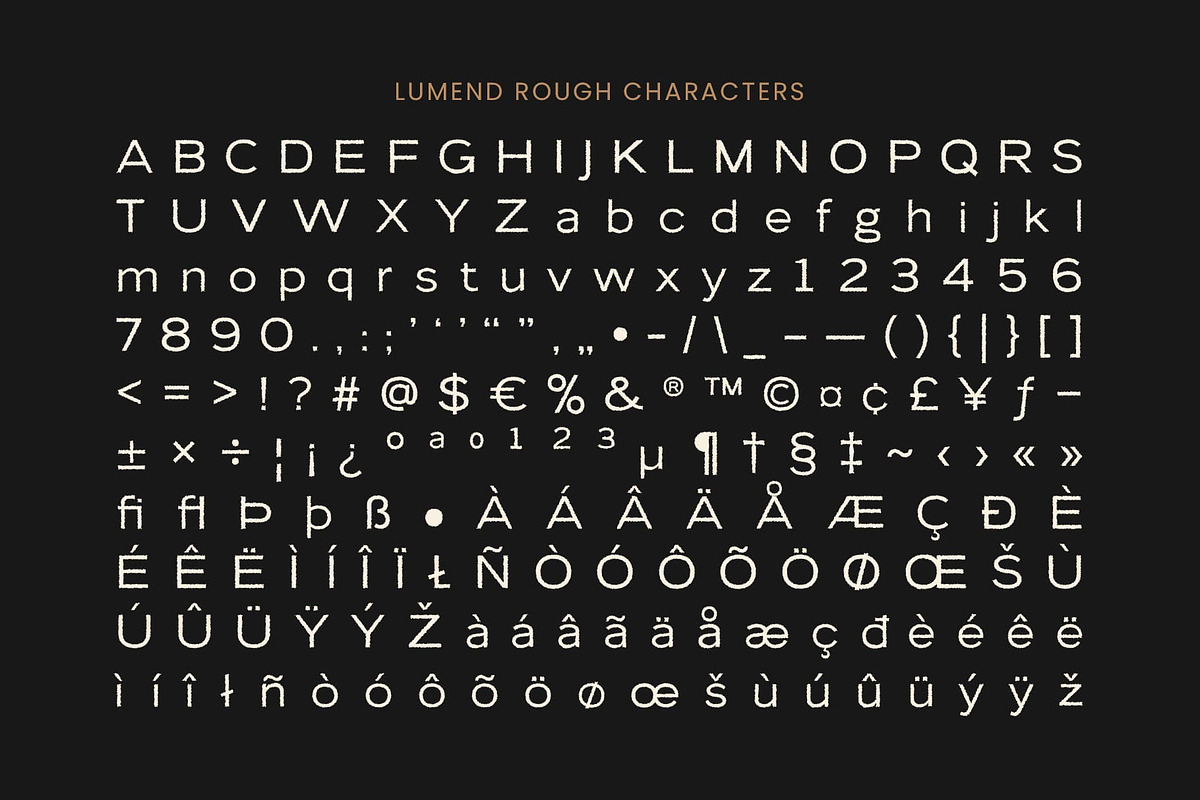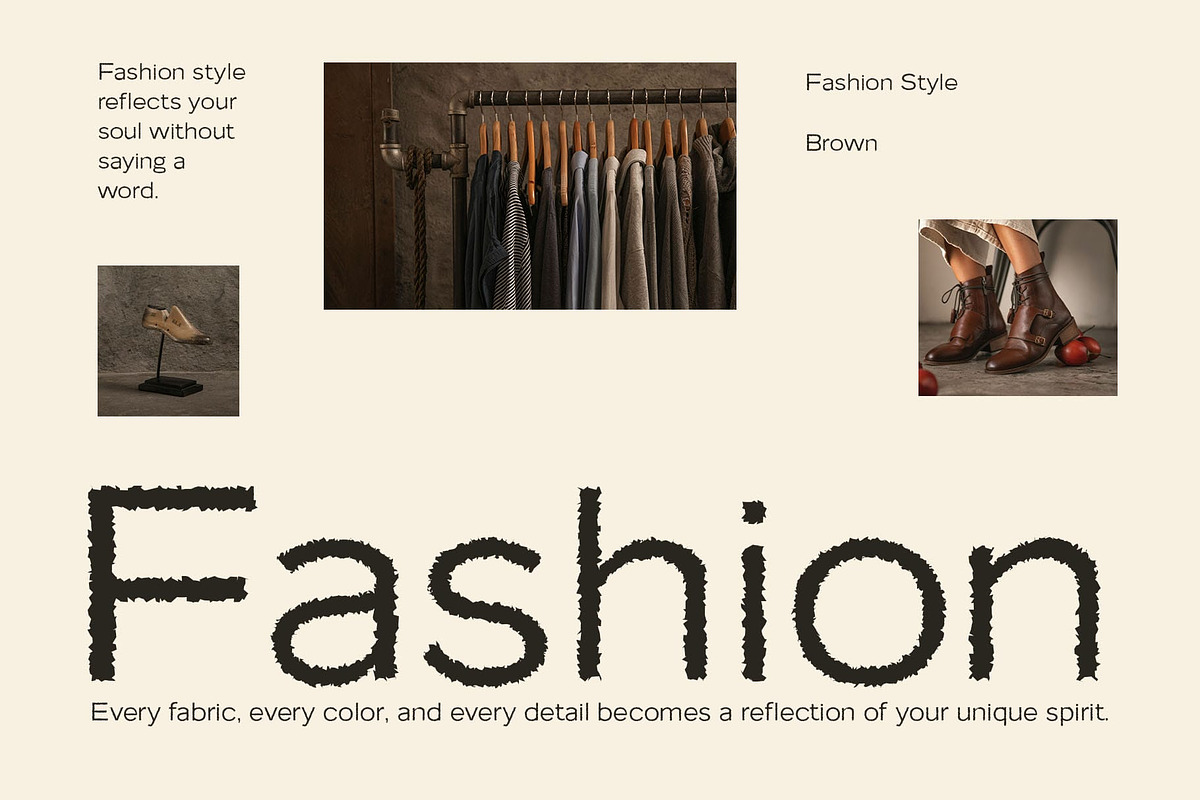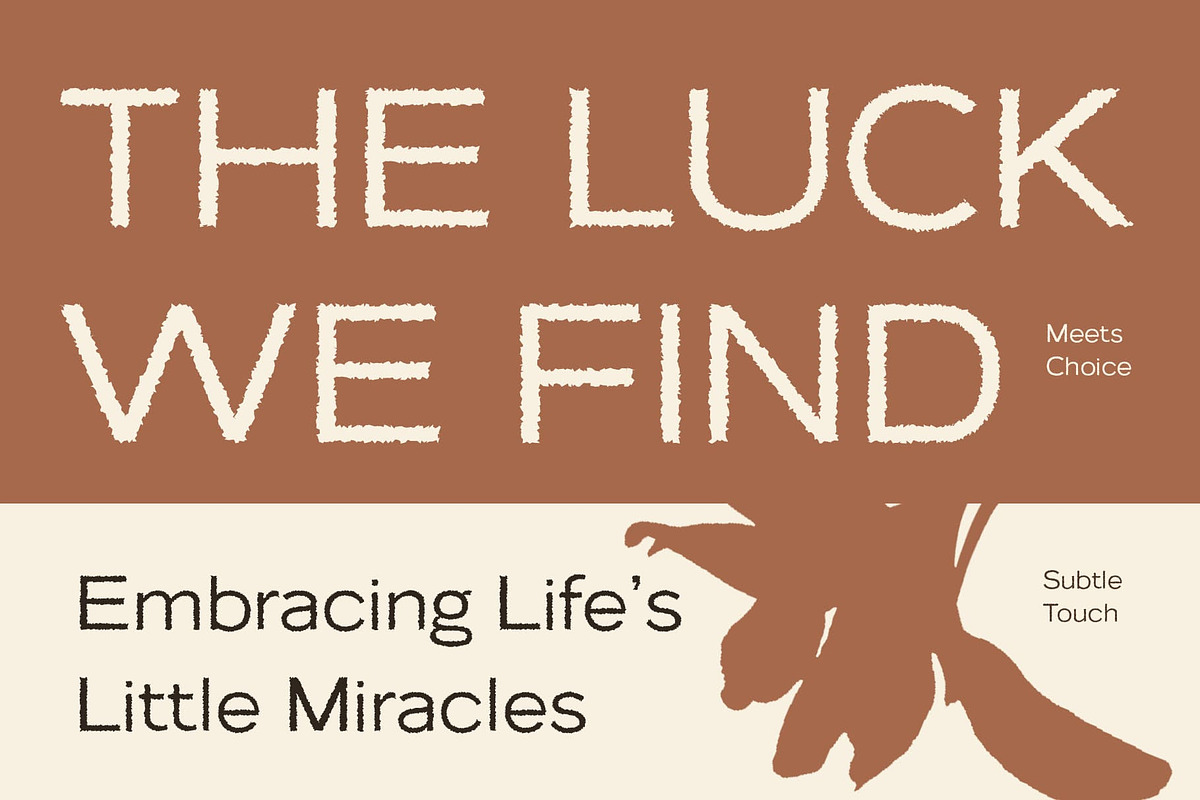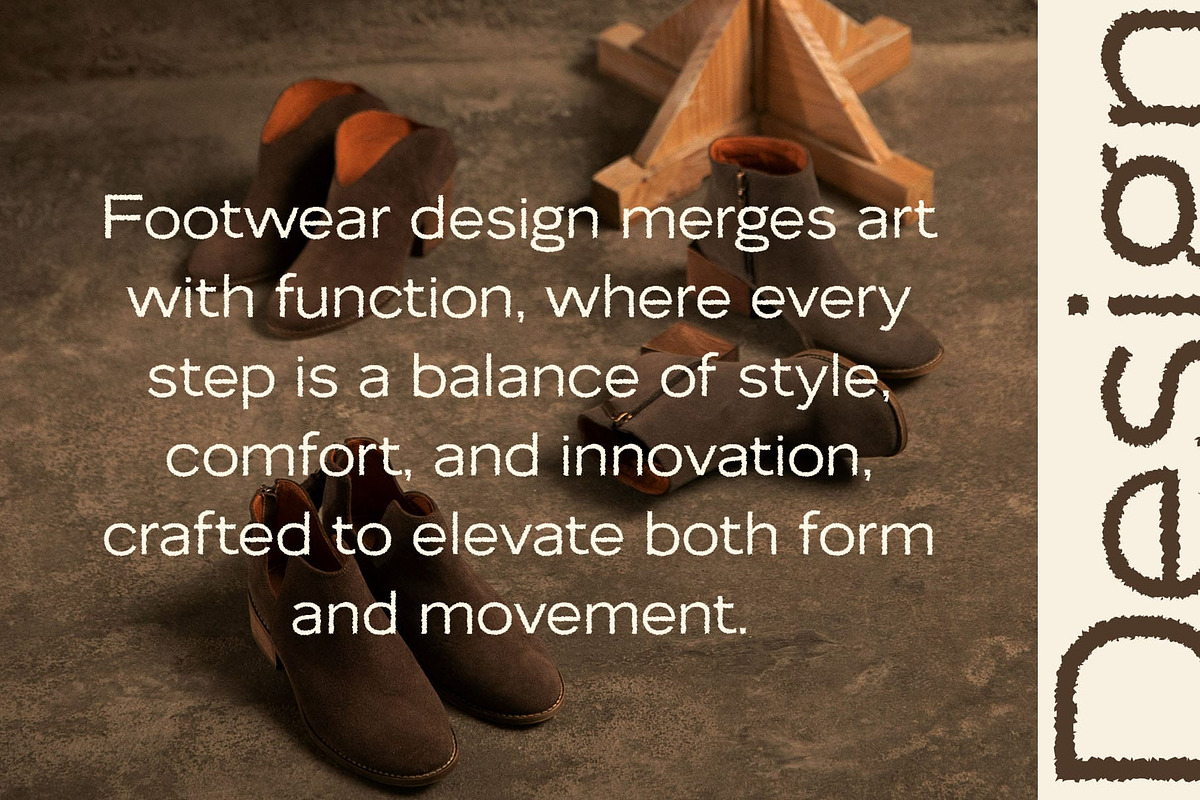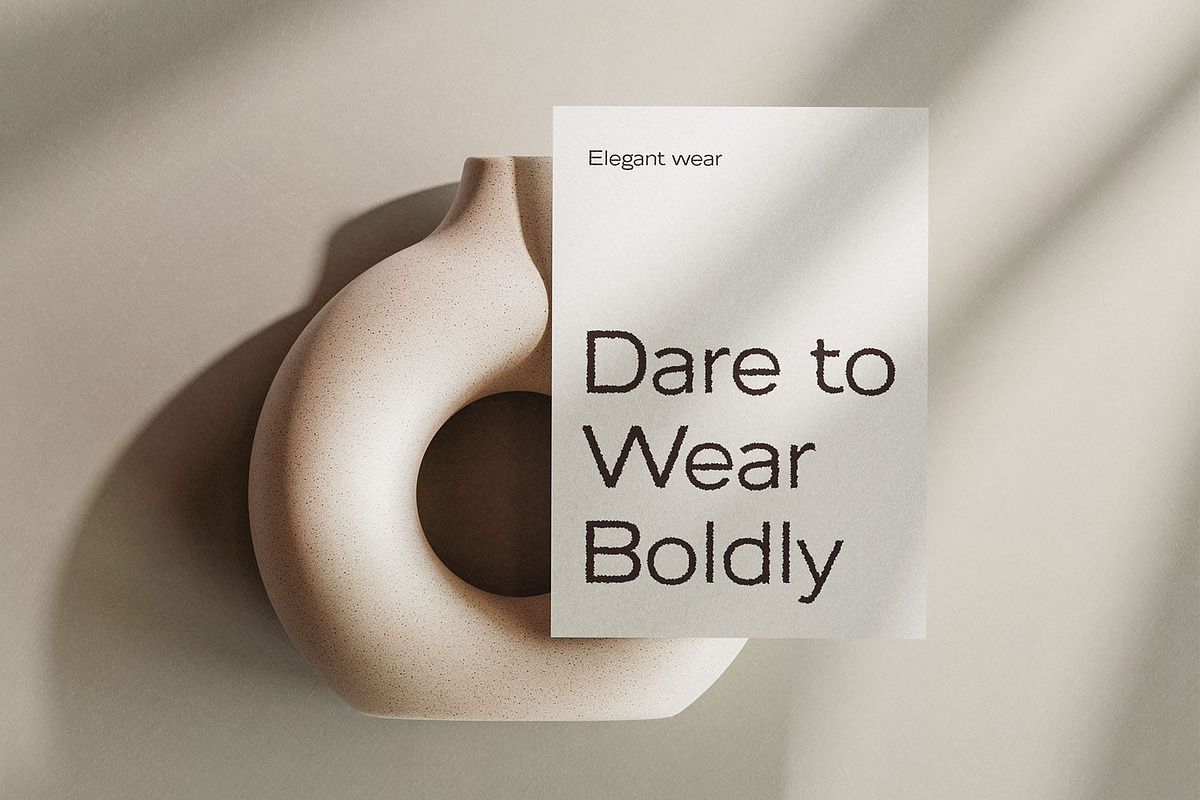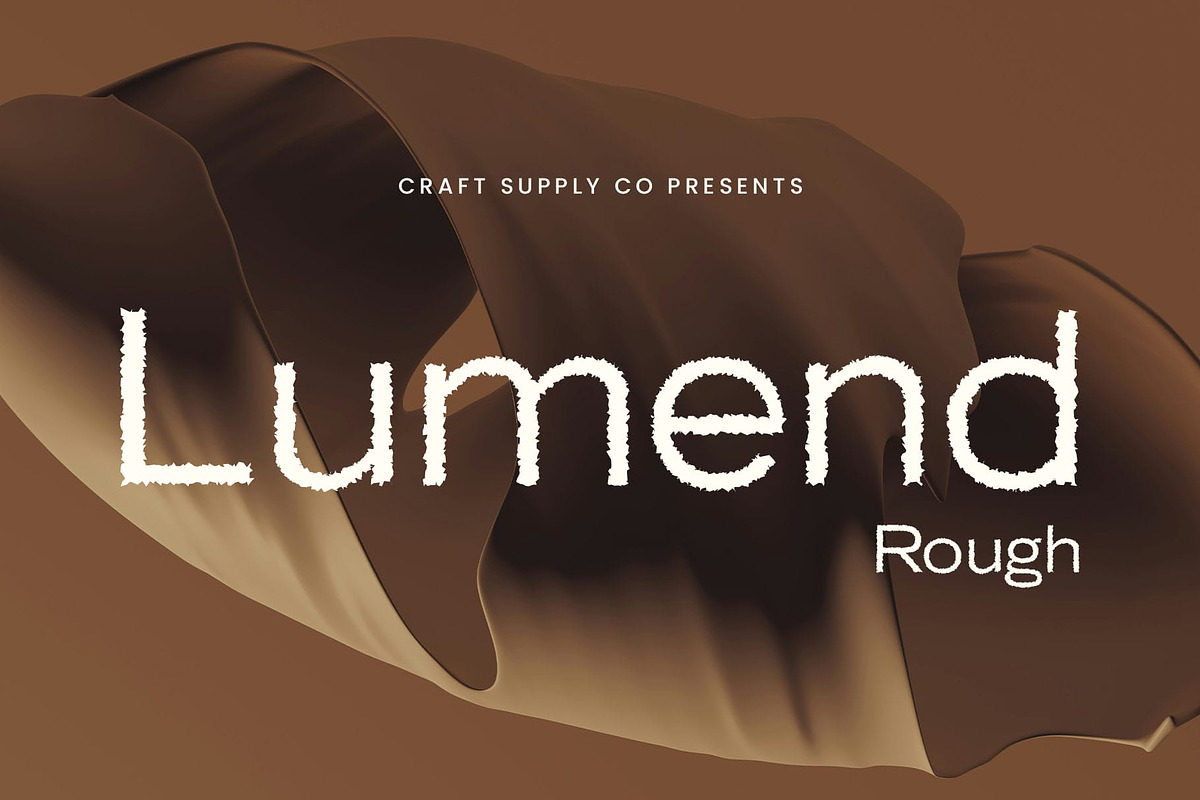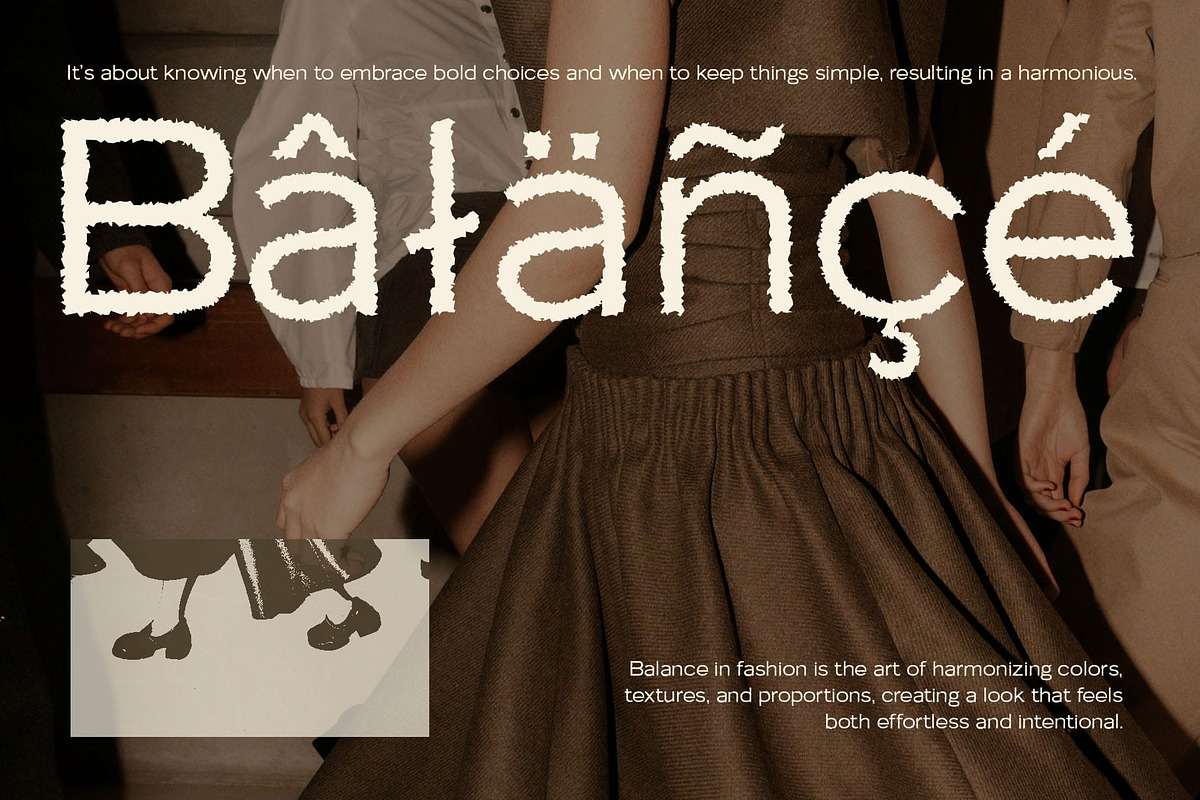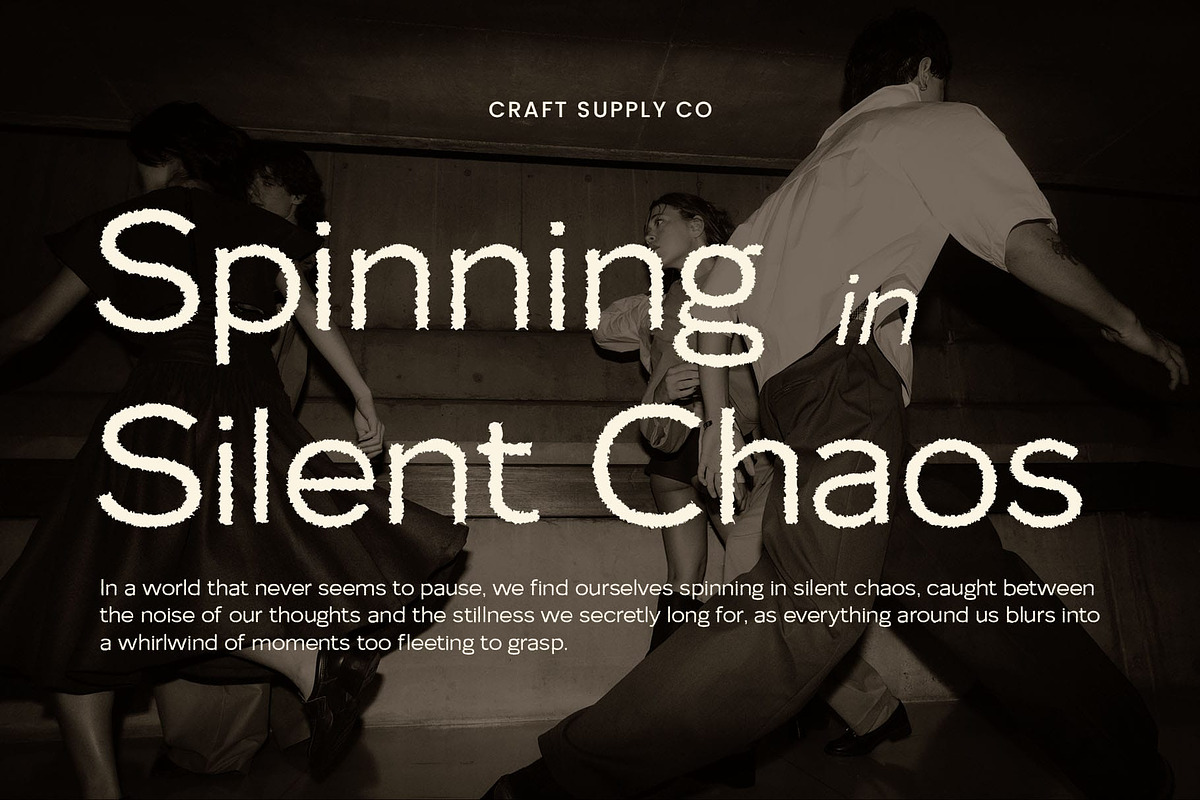
Lumend Rough
Lumend Rough Font – Modern Minimalism with a Bold, Textured Edge
Clean, Contemporary Sans-Serif Design Lumend Rough is a modern sans-serif font that combines minimalist, clean shapes with a strong and confident presence. Its sharp lines, balanced proportions, and clear structure ensure excellent readability, making it perfect for designs that demand clarity and precision.
Rough Texture for Unique Character Adding a rough effect introduces a subtle texture that enhances the font’s character without sacrificing its professional and modern feel. This slight imperfection brings a handcrafted, authentic vibe, setting it apart from standard clean fonts while maintaining a sleek appearance.
Ideal for Bold and Creative Projects Lumend Rough is a versatile choice for branding, posters, editorial designs, packaging, and creative projects that need to balance boldness and uniqueness. It’s especially ideal for those looking to inject a touch of individuality into contemporary and minimalist layouts.
Modern Simplicity Meets Distinctive Style With its fusion of modern simplicity and textured flair, Lumend Rough offers a fresh way to create strong visual identities. It’s perfect for designers who want their work to feel polished yet characterful—professional yet creative. With its contemporary and minimalistic aesthetic, Lumend Rough strikes the perfect balance between boldness and uniqueness. It’s ideal for projects that want to convey both strength and individuality—whether you’re looking to create a lasting brand identity, eye-catching advertising material, or distinctive editorial designs.